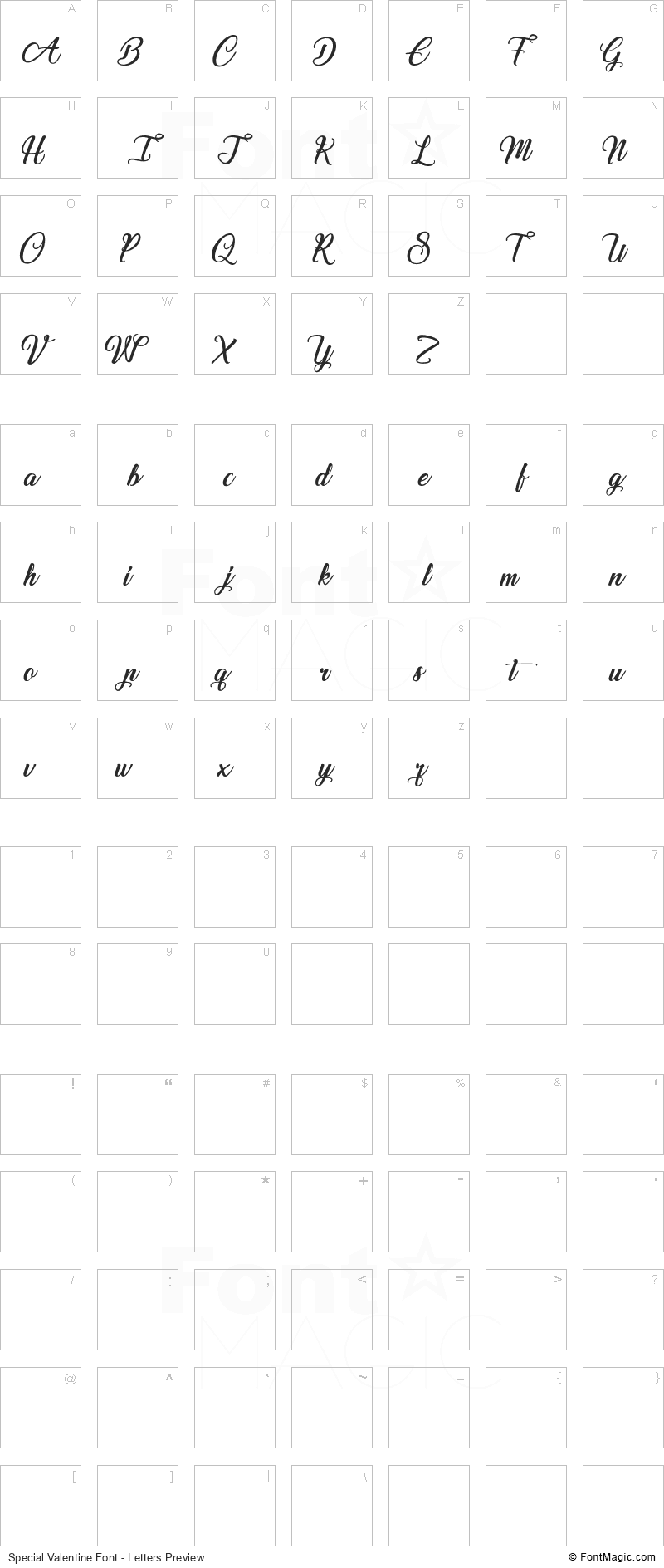
Special Valentine Font . Lots of hearts and calligraphy are perfect for that special card or valentine's day gift. 589,920 downloads (12 yesterday) free for personal use. looking for something special this valentine's day? The special valentine font has been downloaded 690 times. download and install the special valentine font by cat b. download and install the special valentine font by william jhordy. Download these beautiful and unique free fonts to add a romantic. The special valentine font has been downloaded 33,082 times. love is in the air with these romantic fonts.
Special Valentine Font by william jhordy · Creative Fabrica Special Valentine Font The special valentine font has been downloaded 690 times. download and install the special valentine font by william jhordy. Download these beautiful and unique free fonts to add a romantic. looking for something special this valentine's day? love is in the air with these romantic fonts. Lots of hearts and calligraphy are perfect for that special card. Special Valentine Font.
Love Valentine Special Valentine Font download and install the special valentine font by william jhordy. 589,920 downloads (12 yesterday) free for personal use. looking for something special this valentine's day? Download these beautiful and unique free fonts to add a romantic. love is in the air with these romantic fonts. download and install the special valentine font by cat b.. Special Valentine Font.
Valentine Font by parawtype · Creative Fabrica Special Valentine Font download and install the special valentine font by william jhordy. Lots of hearts and calligraphy are perfect for that special card or valentine's day gift. The special valentine font has been downloaded 690 times. The special valentine font has been downloaded 33,082 times. looking for something special this valentine's day? love is in the air with these. Special Valentine Font.